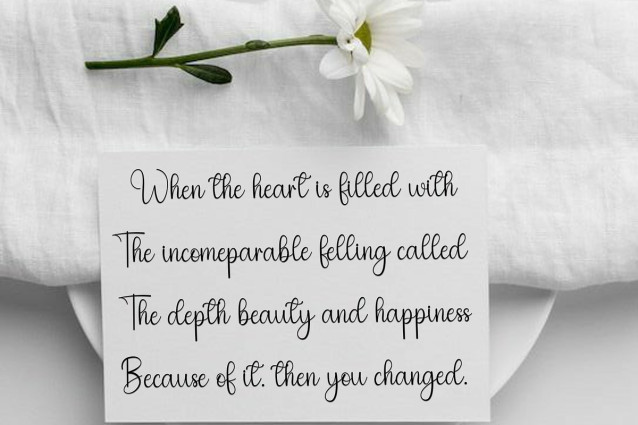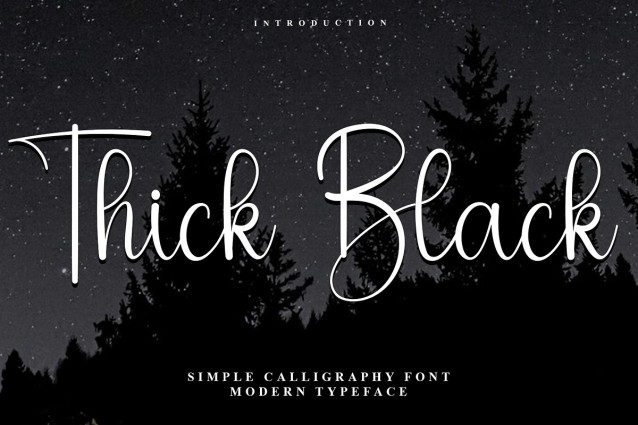
Thick Black Handwriting Font
Thick Black Handwriting Font is a beautiful and eye-catching font designed with a soft, unique touch. Its distinctive strokes give it a special character, making it meaningful and versatile for future use. With various characters, it’s perfect for design projects, crafts, and other creative works.